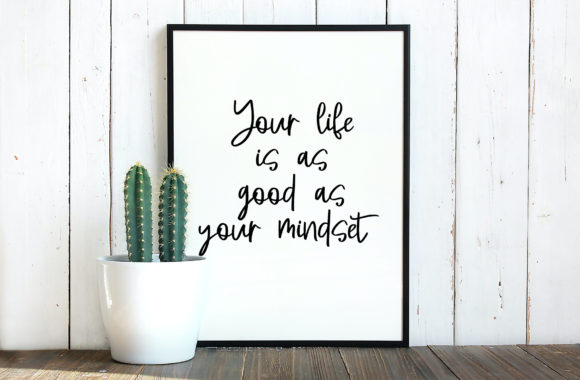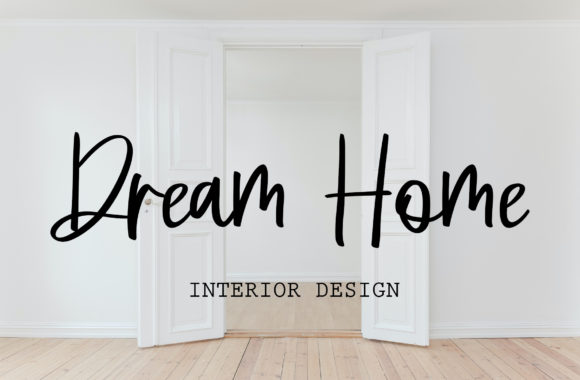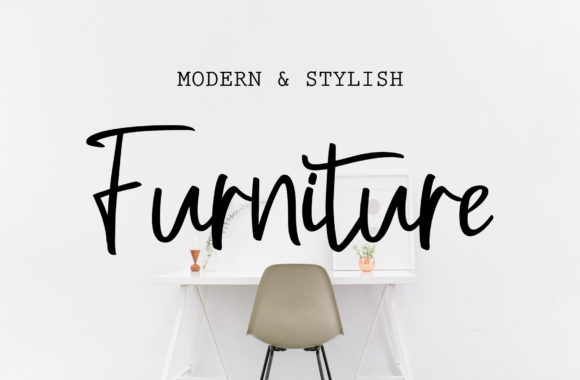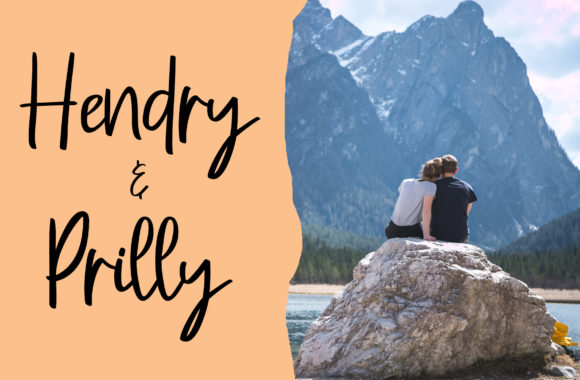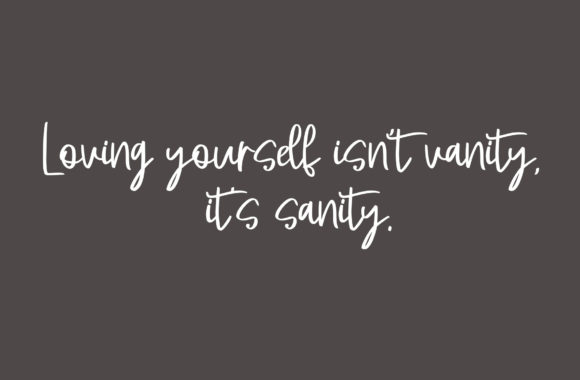
Smoke Font
About Smoke Font
Smoke is a casual and relaxed handwritten font. Its natural and unique style makes it incredibly fitting to a large pool of designs.